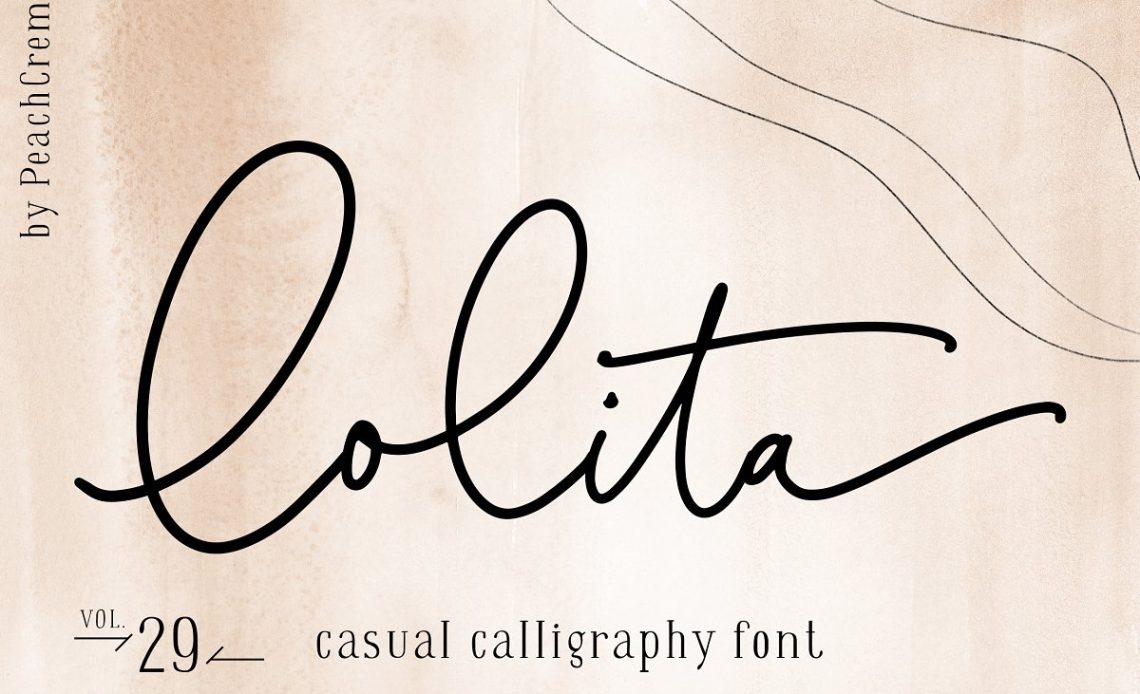
Introducing Lolita, the casual chic font perfect for all your branding, wedding invites, and card needs. Designed by PeachCreme, this font style for calligraphy is updated with new ligatures, making it more unique and stylish.
Lolita's smooth texture allows for various printing techniques such as embroidery, laser cut, and even gold foil, giving your designs an extra touch of elegance. The font family is also versatile, including a full set of lovely uppercase and lowercase letters, multilingual symbols, numerals, punctuation, and lots of ligatures, as well as beginning and ending lowercase swashes.
But what sets Lolita apart is its playful yet chic modern vibe, perfect for capturing attention and creating an emotional connection with your audience. This font is more than just a typographic choice; it's a statement of style and personality.